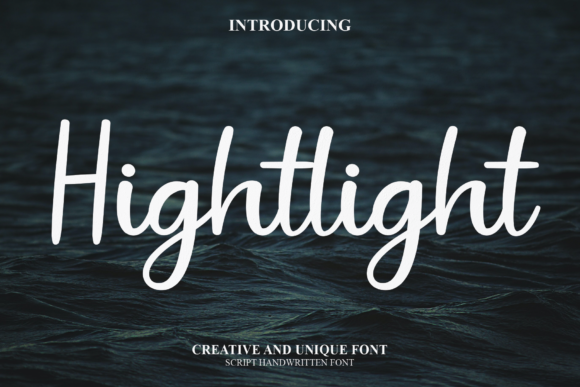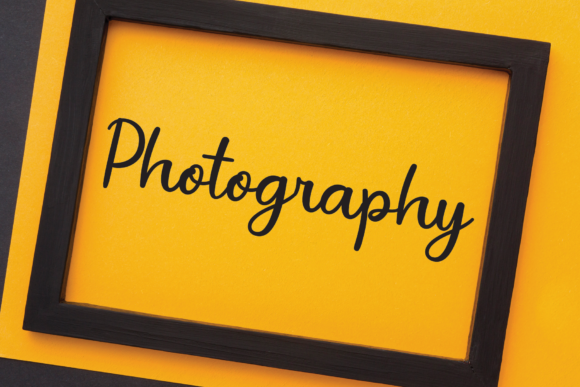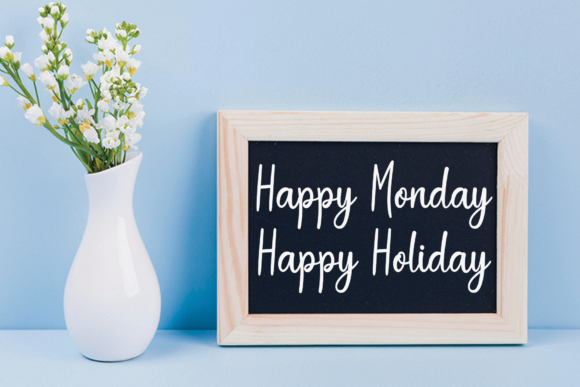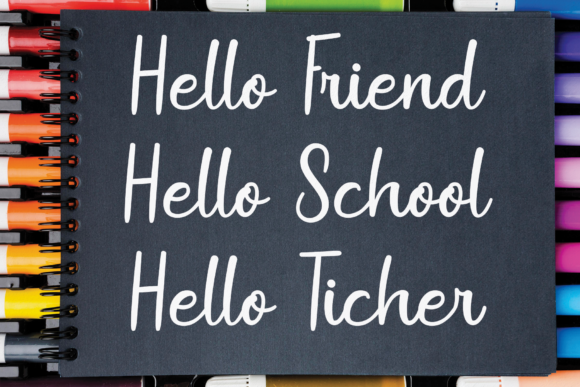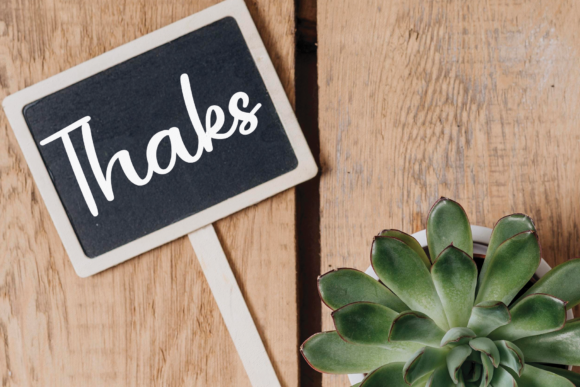
Hightlight Font
About Hightlight Font
This enchanting and flowing handwritten font is a visual masterpiece, tailored to elevate a wide spectrum of design projects. Its beauty and flowing script make it a go-to choice for a diverse array of applications, adding a touch of sophistication to every creative endeavor.
**Wall Hangings:** Transform your living spaces with personalized and artistic wall hangings. The fluid and beautiful characters of this font create a captivating visual experience, turning any space into a gallery of elegance.
**Wedding Invitations:** Capture the essence of romance and elegance in wedding invitations. The font’s graceful script adds a unique and personal touch, setting the tone for a memorable celebration of love.
**Social Media Post Logos:** Establish a distinctive brand presence on social media platforms with logos that showcase the impressive and flowing typography. Your social media posts will stand out, leaving a lasting impression on your audience.
**Advertising:** Make your advertising materials truly memorable. The font’s beauty and flow contribute to eye-catching and impactful designs, ensuring that your message is conveyed with style and sophistication.
**Product Packaging and Design:** Enhance the visual appeal of your products with packaging that reflects elegance. The font’s versatility makes it an ideal choice for labels, product design, and overall packaging aesthetics.
**Labels:** Create labels that not only inform but also captivate. The flowing script adds a touch of artistry to labels, making your products visually appealing on the shelves.
**Photography:** Elevate your photography with watermarks that are as graceful as your images. The font adds a signature touch, turning your photographs into a visual masterpiece.
**Invitations and Stationery:** Whether for formal events or everyday correspondence, the font enhances invitations and stationery with its charming and elegant script, making each piece a work of art.
In essence, this beautiful and flowing handwritten font is a versatile design tool, breathing life into wall hangings, wedding invitations, social media logos, advertising materials, product packaging, labels, photography, watermarks, invitations, and stationery. Its impressive typography is a testament to its ability to enhance the visual appeal of any project, making each one a showcase of timeless elegance.